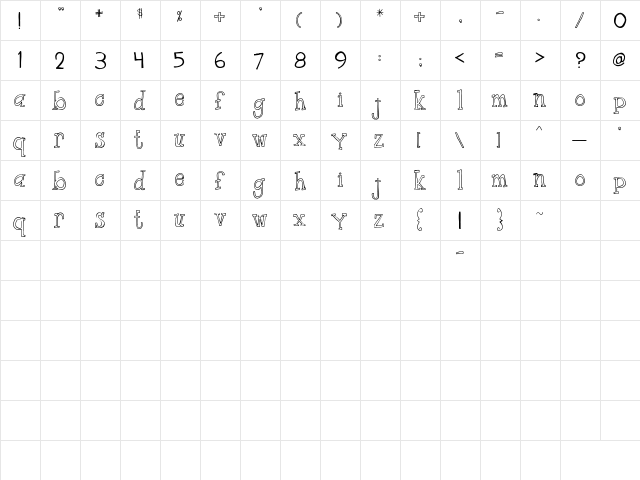
2Peas Little Slab Regular Font Preview
2Peas Little Slab Regular
Design Context for 2Peas Little Slab Typeface
2Peas Little Slab features prominent, blocky serifs that give it a confident, grounded presence — equally at home in editorial settings and bold branding work.
Suited to magazines, political campaign materials, bold packaging, and any setting where authority matters.
Pro Tip: Use 2Peas Little Slab for headlines and subheadings where its slab serifs can make an impression. It also holds up well in mid-size body copy thanks to its sturdy construction.